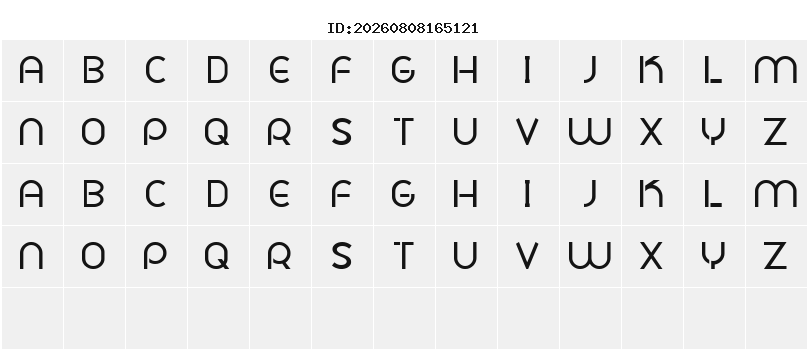
Plig nova Preview
• Font Name: Plig nova
• Designer: Carlos Matteoli
About Plig nova.ttf
Plig nova.ttf is a modern, elegant sans-serif font designed for ultimate readability and visual harmony. Perfect for branding, headlines, web design, and print materials.